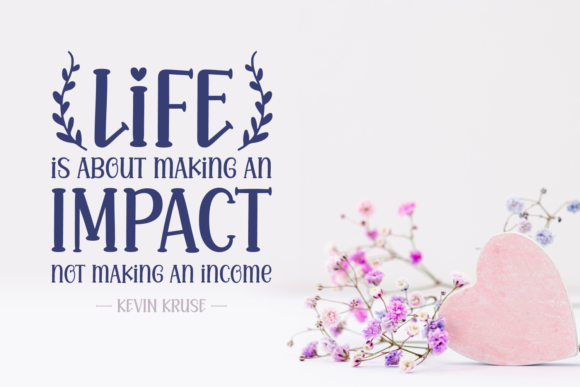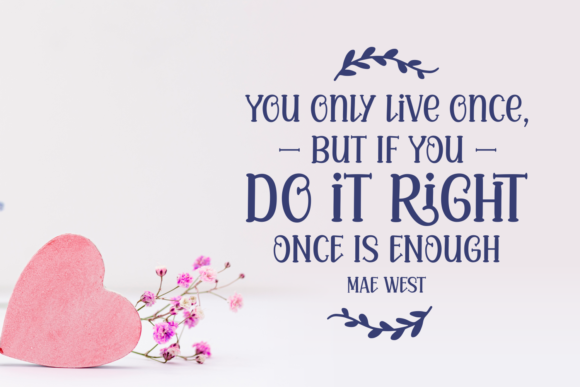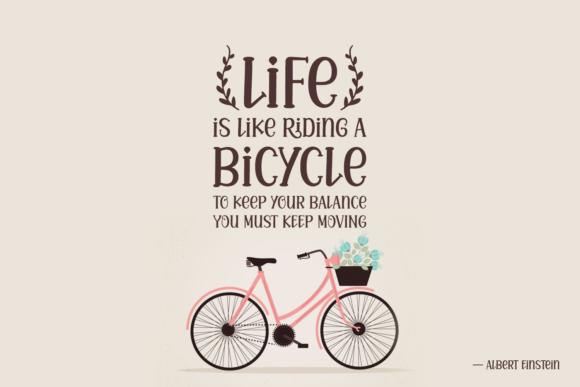
Introduction to Mila Bright Font
Have you ever found yourself scrolling through Instagram, mesmerized by the beautiful handwritten fonts that seem to bring a smile to your face? For many designers, this is a common experience, and one that often sparks a desire to create something beautiful and unique. That’s where the Mila Bright Font comes in – a stunning, casual handwritten font that’s perfect for adding a touch of personality to your creative projects.
As a valuable resource for designers, the Mila Bright Font offers a level of versatility that’s hard to find. With gorgeous swashes and ligatures, this script font can be used for a wide range of applications, from Instagram graphics to DIY calligraphy projects. And the best part? It’s available for free download, making it a must-have design resource for anyone looking to elevate their creative game.
Key Features of Mila Bright Font
- Unique and modern sans-serif design ideal for creative projects and innovative designs.
- High-quality font with transparent background, allowing for seamless integration into design resources.
- Designed to be versatile and suitable for use in a variety of design contexts, including logos, branding, and digital media.
- Includes a comprehensive character set, supporting multiple languages and making it a valuable design resource.
- Can be easily customized and edited using font editing software, making it a valuable asset for designers and creatives.
Honest Review: Mila Bright Font
As a designer, I’m always on the lookout for high-quality fonts to elevate my creative projects. The Mila Bright Font is one such resource that caught my attention. This free download is perfect for designers who want to add a touch of elegance to their designs.
Here’s what I love about the Mila Bright Font: ✨
- Its transparent background makes it easy to use on any design surface.
- The font is highly customizable, allowing me to adjust the size, color, and style to suit my project’s requirements.
- The font is available in various weights, from light to bold, making it perfect for a range of design projects.
However, I do have a few limitations to mention: ⚠️
- The font may not be suitable for projects that require a lot of bold, attention-grabbing text.
- The font’s design may not be suitable for all audiences, as it has a somewhat feminine touch.
Overall, I’m impressed with the Mila Bright Font. It’s a great design resource that can add a touch of sophistication to any project. With its high-quality design and transparent background, it’s perfect for designers who want to create beautiful, elegant designs.
- Use the font on a transparent background to add a touch of elegance to your designs.
- Combine the font with high-quality images to create visually appealing designs.
- Experiment with different font sizes and styles to add emphasis to your text.
The Mila Bright Font is commonly used in a variety of creative projects, including:
- Infographics and data visualizations
The Great Vibes Font is a beautiful, elegant script font perfect for creative projects that require a touch of sophistication. It features a transparent background, making it ideal for overlays and graphics. Great Vibes is a high-quality design resource that is free to download and use in both personal and commercial projects.
Great Vibes Font is similar to Mila Bright Font in its elegant and sophisticated feel, but it has a more refined and polished appearance. It’s ideal for use in wedding invitations, menus, and other high-end design projects.
The Alex Brush Font is a hand-drawn script font that adds a personal touch to any creative project. It features a beautiful, flowing design that works well with transparent backgrounds. Alex Brush is a popular design resource that is free to download and use in both personal and commercial projects.
Alex Brush Font is similar to Mila Bright Font in its hand-drawn feel, but it has a more whimsical and playful appearance. It’s ideal for use in children’s book illustrations, greeting cards, and other creative projects that require a touch of personality.